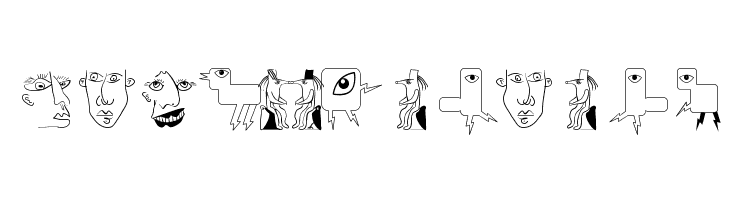
A decorative font featuring hand tools as characters, perfect for DIY-themed projects.
A bold, handwritten font with a playful and energetic style.
A tall, narrow, and modern font with an elegant and sophisticated style.
A bold, rounded font with smooth curves and consistent spacing.
A futuristic, bold font with geometric shapes and sharp angles.
A bold, futuristic font with a dynamic, slanted design.
The image features decorative silhouette illustrations, not a font.
A playful, hand-drawn font with dynamic strokes and a whimsical style.
A whimsical decorative font featuring cartoon figures in circular frames.
A classic serif font with elegant lines and high contrast, ideal for formal and modern uses.
A bold, ornate Blackletter font with intricate, angular letterforms.
A bold, tall font with consistent stroke width and a modern, commanding presence.
A display font made up of illustrated human faces for each character.
A decorative and abstract font with bold, patterned characters in enclosed shapes.
A bold, shadowed Gothic-style font with sharp, angular lines.
A bold, classic Blackletter style font with intricate curves and sharp edges.
A decorative font with characters designed as unique fish shapes within diamond frames.
An artistic and decorative font featuring mythical and abstract creature designs.
A decorative font with each character as a unique face illustration.
A decorative dingbat font of human silhouettes and cartoon figures.
Cartoon-style illustrative font with each glyph as a unique scene.
A high-contrast serif typeface with elegant, refined strokes.